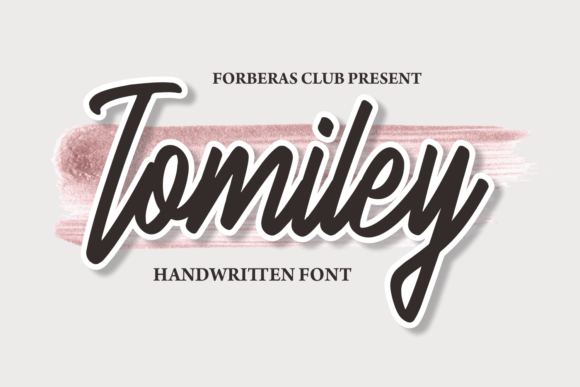
Introducing Tomiley Font – A Timeless Masterpiece for All Your Creative Pursuits
Step into the enchanting world of Tomiley, a meticulously designed handwritten font that exudes grace and charm. Inspired by the beauty of handwritten notes, Tomiley is a work of art that will elevate your designs to new heights.
With its flowing lines and delicate curves, Tomiley effortlessly adds a touch of elegance and sophistication to any project. Whether you're creating heartfelt quotes, stunning logos, or captivating social media posts, Tomiley will make your words come alive. It's the perfect choice for designers, bloggers, and creative entrepreneurs who seek to leave a lasting impression.
Crafted with precision and care, Tomiley is not just another font – it's a versatile tool that adapts seamlessly to your creative vision. Its natural, free-flowing style makes it incredibly versatile, allowing you to effortlessly create designs that resonate with your audience.
Experience the Joy of Seamless Creativity with Tomiley
With Tomiley by your side, you'll discover a world of creative possibilities. Effortlessly craft designs that exude elegance, charm, and a touch of personal flair. Its intuitive design ensures that even beginners can create stunning visuals without any hassle.
Tomiley is the perfect font for those who value authenticity and individuality. Its unique character adds a personal touch to your designs, making them stand out from the crowd. Whether you're working on personal projects or professional assignments, Tomiley will help you create designs that truly reflect your style and vision.
Embrace Beauty and Elegance with Tomiley
Tomiley is more than just a font – it's an invitation to embrace beauty and elegance in your designs. Its intricate details and flowing strokes will transform your words into captivating works of art. Say goodbye to boring, mundane fonts and elevate your designs to new heights with Tomiley.
Experience the magic of Tomiley today and unleash your creativity. Let your words dance gracefully across the page, captivating your audience with their charm and sophistication. Discover the endless possibilities that await you with Tomiley, the font that will revolutionize your creative journey.